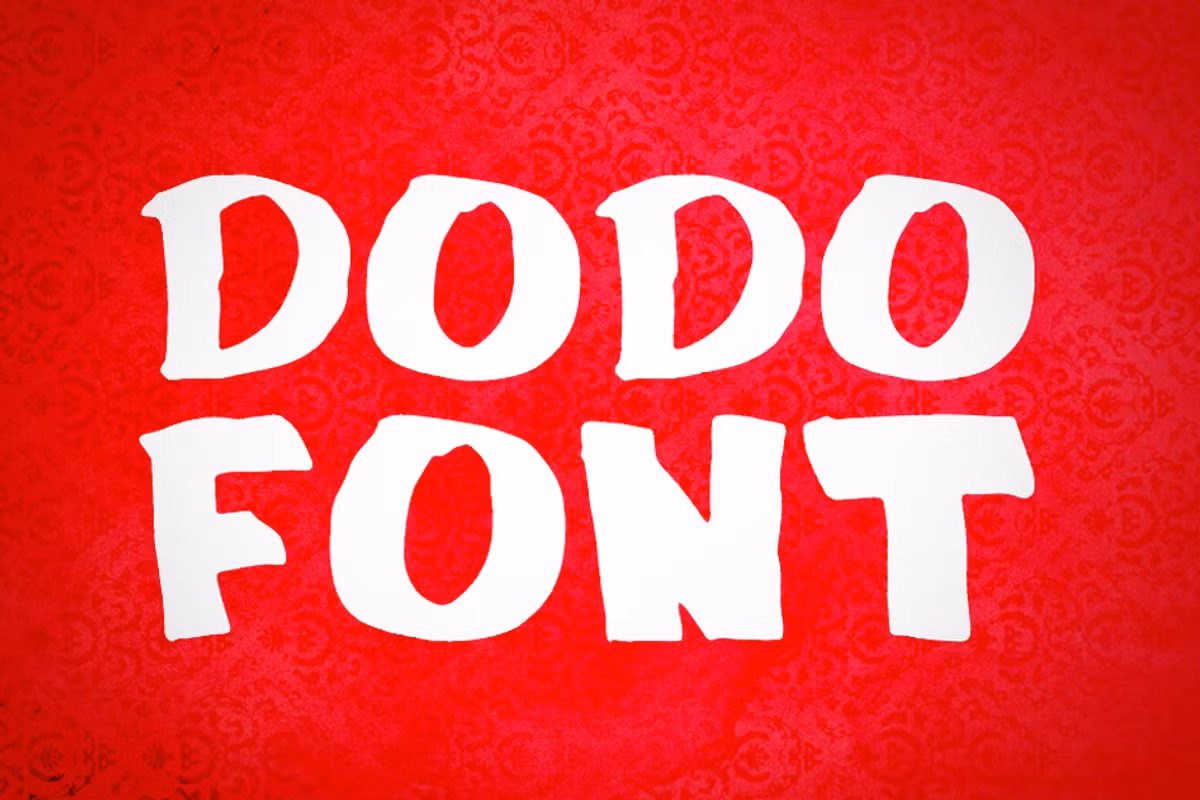
Please note, to use this font for commercial purposes, you must purchase the full version. Dodofont is a playful and unique typeface that adds a fun, creative touch to any design. With its rounded edges and friendly letterforms, this font is perfect for children's projects, branding, logos, and invitations. Whether you're designing a whimsical brand identity or a cheerful greeting card, Dodofont brings a lighthearted and charming feel to your work. Test it out and enjoy free download access for personal use. Experience the playful character of Dodofont Font Free Download before purchasing the commercial license. Add a fun, lively vibe to your designs with this delightful font.